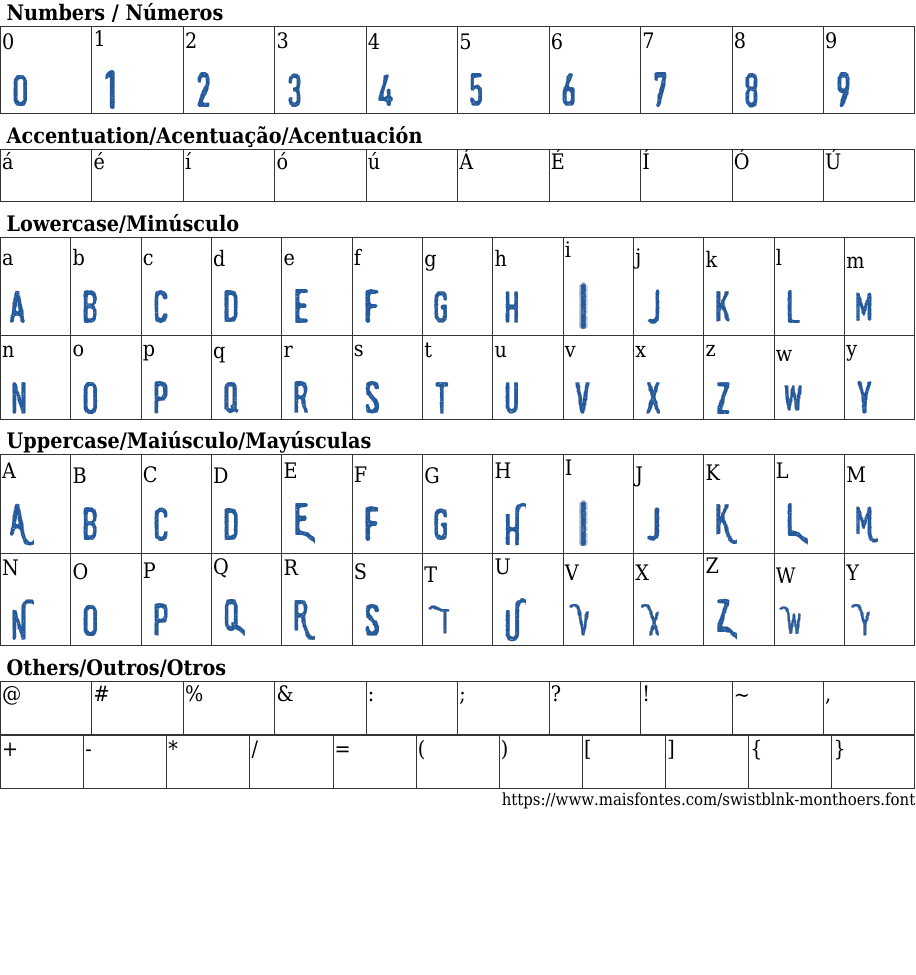
Swistblnk Monthoers Font . Web swistblnk monthoers font — created in 2014 by swistblnk. Web swistblnk monthoers font is a vintage font and was created on jun 18, 2014.
Monthoers Font
Swistblnk Monthoers Font - Web download free swistblnk monthoers font, view its character map and. Monthoers is handmade modern vintage textured display. Swistblnk monthoers font is free for both personel and commercial usages. Swistblnk monthoers by sans & sons. Web you can download the swistblnk monthoers font to your computer or use it on your website.
Swistblnk Monthoers Font - Web swistblnk monthoers font is a fancy, eroded font designed by swistblnk. Web swistblnk monthoers font : Swistblnk monthoers font is free for both personel and commercial usages. Monthoers is handmade modern vintage textured display. 539,275 downloads (34 yesterday) 6 comments.
Swistblnk Monthoers Font - Web swistblnk monthoers font is a vintage font and was created on jun 18, 2014. Uploaded by moen.rowan 𑁋 (1 style). Monthoers is handmade modern vintage textured display. 539,275 downloads (34 yesterday) 6 comments. Since then, it has been downloaded.
Swistblnk Monthoers Font - Swistblnk monthoers font is free for both personel and commercial usages. Web swistblnk monthoers font — created in 2014 by swistblnk. Uploaded by moen.rowan 𑁋 (1 style). Monthoers is handmade modern vintage textured display. Web swistblnk monthoers font is a fancy, eroded font designed by swistblnk.
Swistblnk Monthoers Font - Swistblnk monthoers by sans & sons. Since then, it has been downloaded. Download free for desktop & webfont. Monthoers is handmade modern vintage textured display. Web swistblnk monthoers font is a fancy, eroded font designed by swistblnk.
Swistblnk Monthoers Font - Web you can download the swistblnk monthoers font to your computer or use it on your website. Since then, it has been downloaded. Web swistblnk monthoers font — created in 2014 by swistblnk. Web swistblnk monthoers font is a vintage font and was created on jun 18, 2014. Download free for desktop & webfont.
Swistblnk Monthoers Font - Web swistblnk monthoers font : Web you can download the swistblnk monthoers font to your computer or use it on your website. 539,275 downloads (34 yesterday) 6 comments. Since then, it has been downloaded. Web swistblnk monthoers font is a fancy, eroded font designed by swistblnk.
Swistblnk Monthoers Font - Uploaded by moen.rowan 𑁋 (1 style). Web swistblnk monthoers font : Web you can download the swistblnk monthoers font to your computer or use it on your website. Web swistblnk monthoers font is a fancy, eroded font designed by swistblnk. Monthoers is handmade modern vintage textured display.
Swistblnk Monthoers Font - Web swistblnk monthoers font — created in 2014 by swistblnk. Swistblnk monthoers font is free for both personel and commercial usages. 539,275 downloads (34 yesterday) 6 comments. Since then, it has been downloaded. Web download free swistblnk monthoers font, view its character map and.
Swistblnk Monthoers Font - Swistblnk monthoers by sans & sons. Web you can download the swistblnk monthoers font to your computer or use it on your website. Monthoers is handmade modern vintage textured display. Uploaded by moen.rowan 𑁋 (1 style). Web download free swistblnk monthoers font, view its character map and.
Swistblnk Monthoers Font - Web swistblnk monthoers font is a fancy, eroded font designed by swistblnk. Web swistblnk monthoers font : Web download free swistblnk monthoers font, view its character map and. Web swistblnk monthoers font is a vintage font and was created on jun 18, 2014. Web swistblnk monthoers font — created in 2014 by swistblnk.
Swistblnk Monthoers Font - Web swistblnk monthoers font is a fancy, eroded font designed by swistblnk. 539,275 downloads (34 yesterday) 6 comments. Web swistblnk monthoers font : Download free for desktop & webfont. Swistblnk monthoers font is free for both personel and commercial usages.
Swistblnk Monthoers Font - Uploaded by moen.rowan 𑁋 (1 style). Web swistblnk monthoers font — created in 2014 by swistblnk. Web you can download the swistblnk monthoers font to your computer or use it on your website. Swistblnk monthoers by sans & sons. Web swistblnk monthoers font is a vintage font and was created on jun 18, 2014.
Swistblnk Monthoers Font - Since then, it has been downloaded. Uploaded by moen.rowan 𑁋 (1 style). Web swistblnk monthoers font is a vintage font and was created on jun 18, 2014. Web you can download the swistblnk monthoers font to your computer or use it on your website. Monthoers is handmade modern vintage textured display.